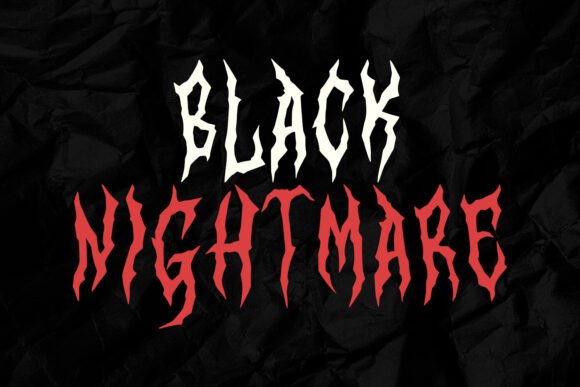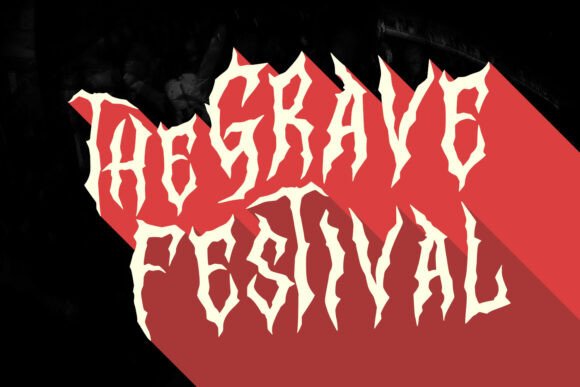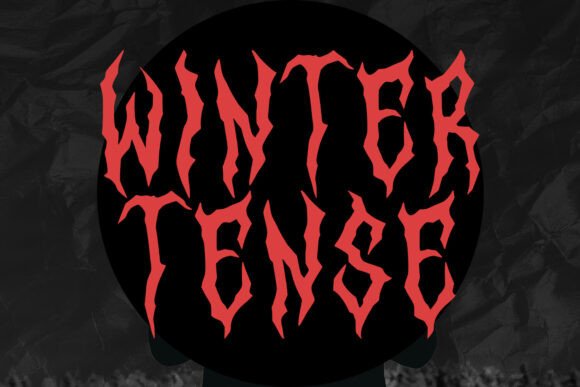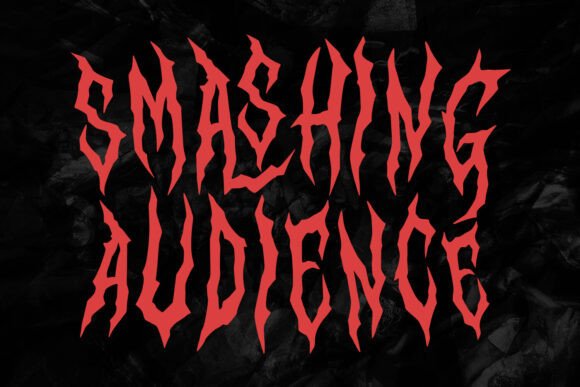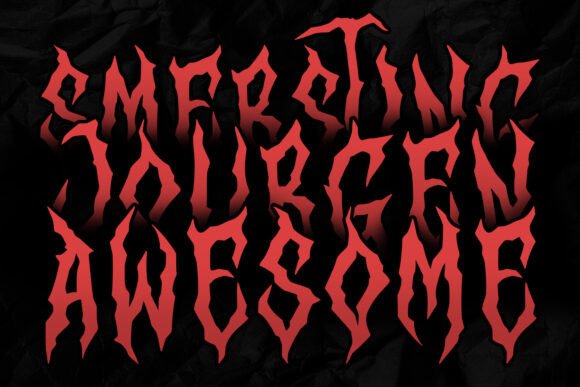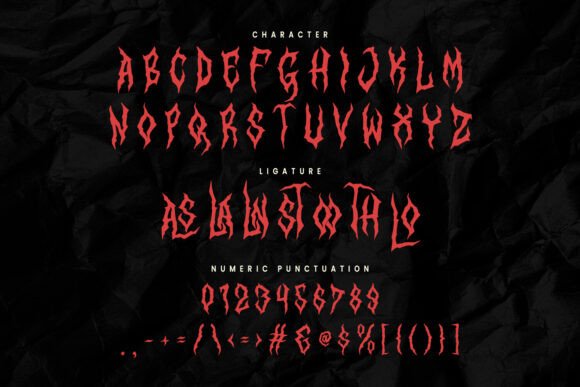
Introduction to Lorque Font
Give your designs an authentic brush handcrafted feel.
โLorque Black Metal Display Fontโ is perfectly suited to stationery, logo, typography quotes, magazine or book cover, website header, flyer, clothing, branding, packaging design, music event, black metal event and more .